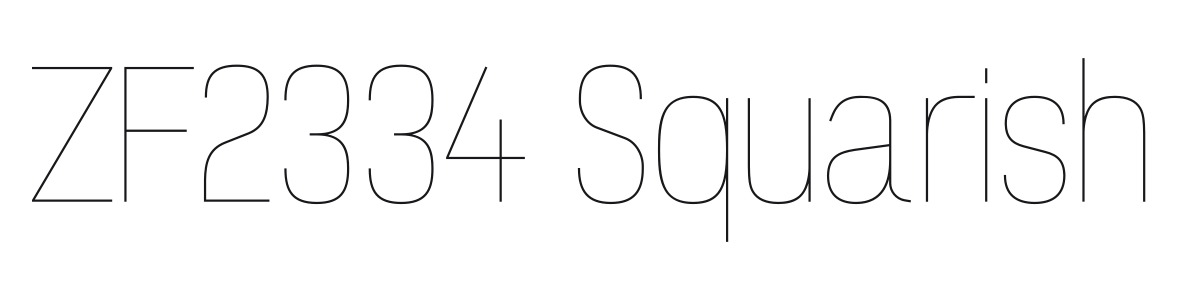
ZF2334 Squarish
ZF2334 SquarishLicense is a condensed hairline grotesque with near-invisible stroke weight and softly rounded terminals. Its proportions echo Helvetica Condensed, but at this extreme thinness it takes on a distinctly refined, almost ethereal quality. The hairline and light weights are where it shines, perfect for oversized editorial headlines and fashion branding.